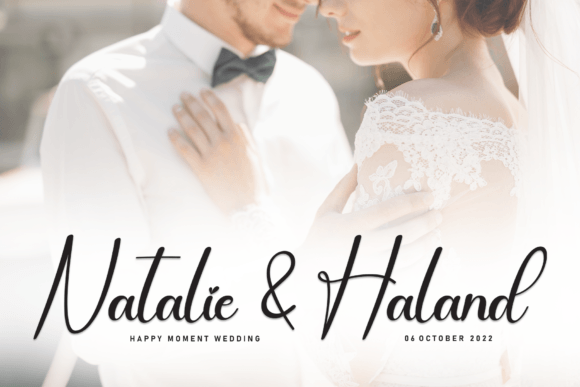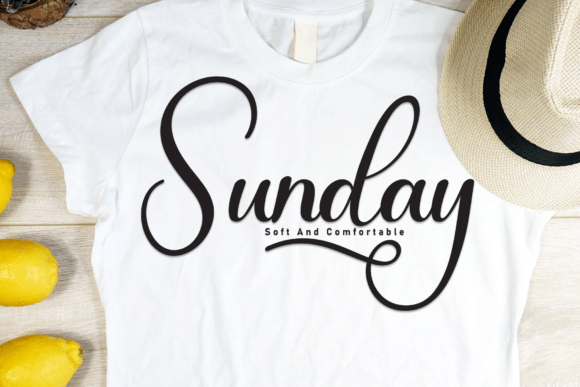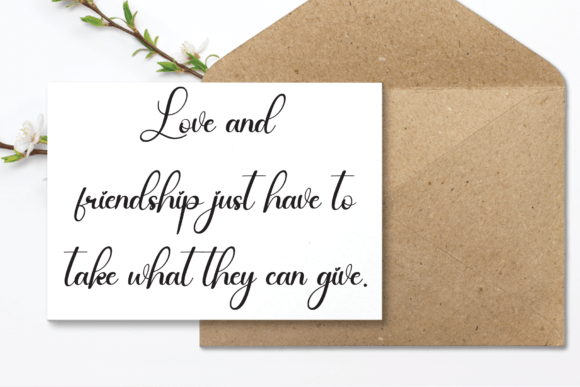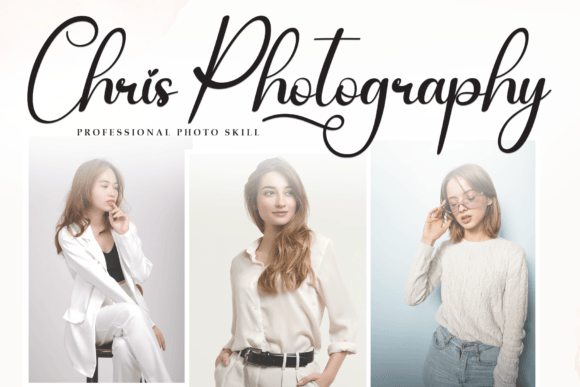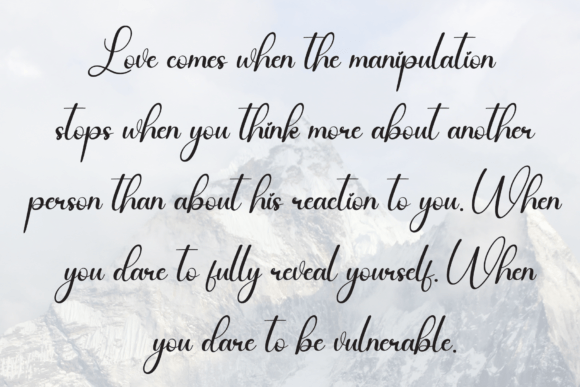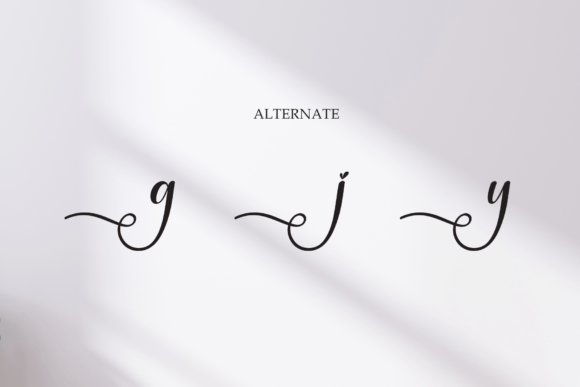
Introducing Felicity Font: The Sweet and Friendly Handwritten Display Font
Are you looking for a font that can add a touch of warmth and personality to your designs? Look no further than Felicity Font, a sweet and friendly handwritten display font that’s perfect for creating eye-catching wedding invitations, cards, and other creative projects. In this article, we’ll take a closer look at Felicity Font, its features, and how you can use it to elevate your designs.
What is Felicity Font?
Felicity Font is a beautiful handwritten display font that’s designed to bring a sense of joy and playfulness to your designs. With its cute and fun lettering style, this font is ideal for creating designs that require a personal touch. Whether you’re designing wedding invitations, greeting cards, or social media graphics, Felicity Font is the perfect choice.
Key Features of Felicity Font
So, what makes Felicity Font so special? Here are some of its key features:
- Handwritten style: Felicity Font has a beautiful handwritten style that’s perfect for creating personal and heartfelt designs.
- Cute and fun: This font is designed to be cute and fun, making it ideal for designs that require a playful touch.
- Display font: Felicity Font is a display font, which means it’s perfect for headlines, titles, and other attention-grabbing elements.
- Easy to read: Despite its playful style, Felicity Font is easy to read, making it perfect for designs that require a clear and concise message.
Use Cases for Felicity Font
Felicity Font is a sweet and friendly handwritten display font that’s perfect for adding a touch of personality to your designs. With its cute and fun lettering style, this font is ideal for creating eye-catching wedding invitations, cards, and other creative projects. Whether you’re a designer or a crafter, Felicity Font is a great addition to your font library.